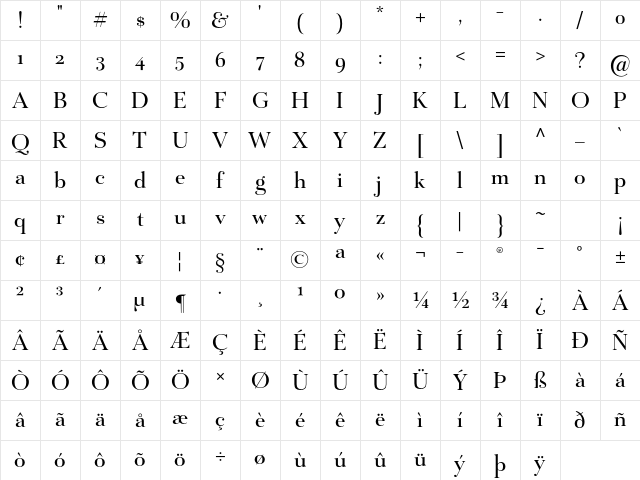
Mr Gabe Regular
Foundry: Leksen Design LLC
Designer: Andrea Leksen
Design Context for Mr Gabe
Mr Gabe is a composed and adaptable typeface that performs quietly and consistently across a wide range of design contexts.